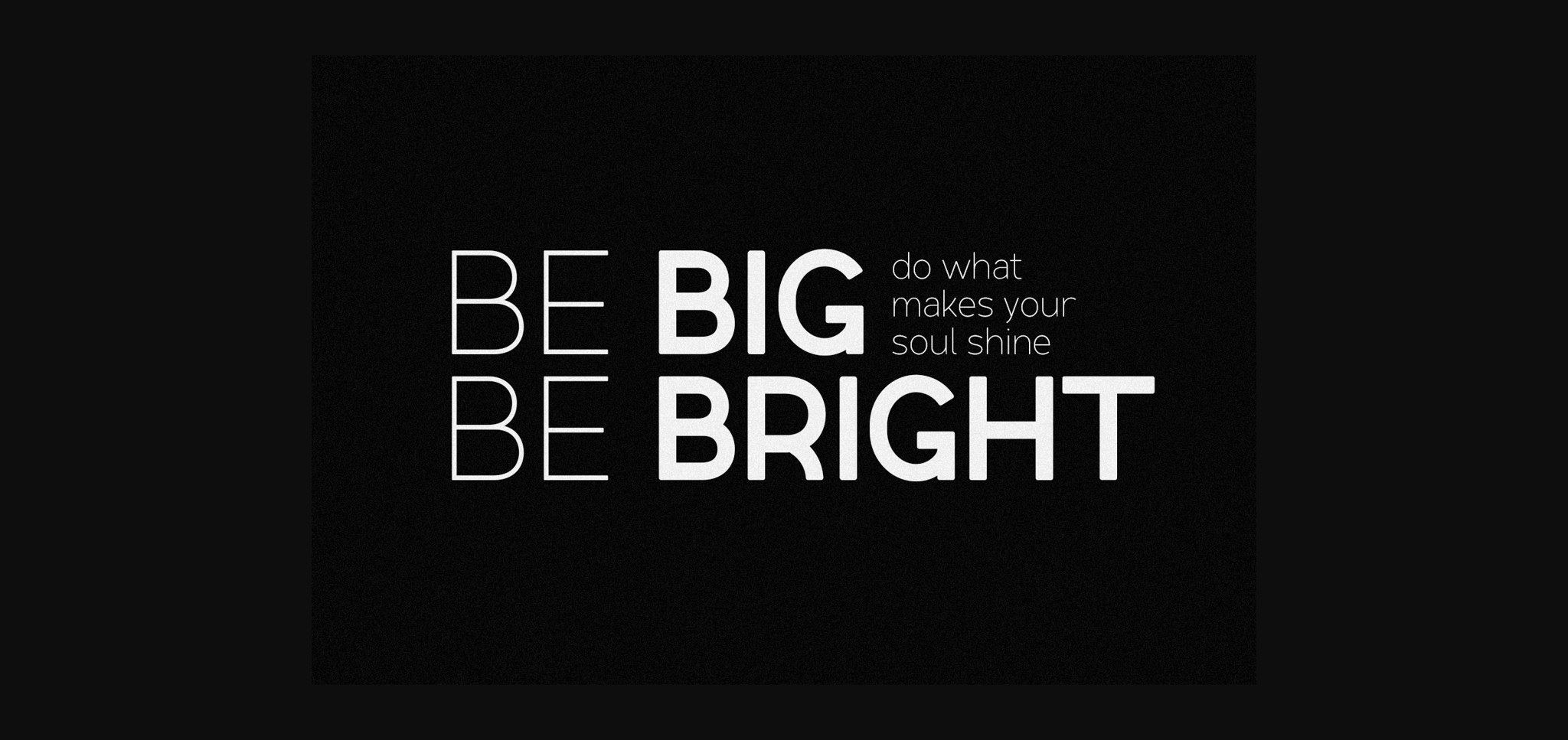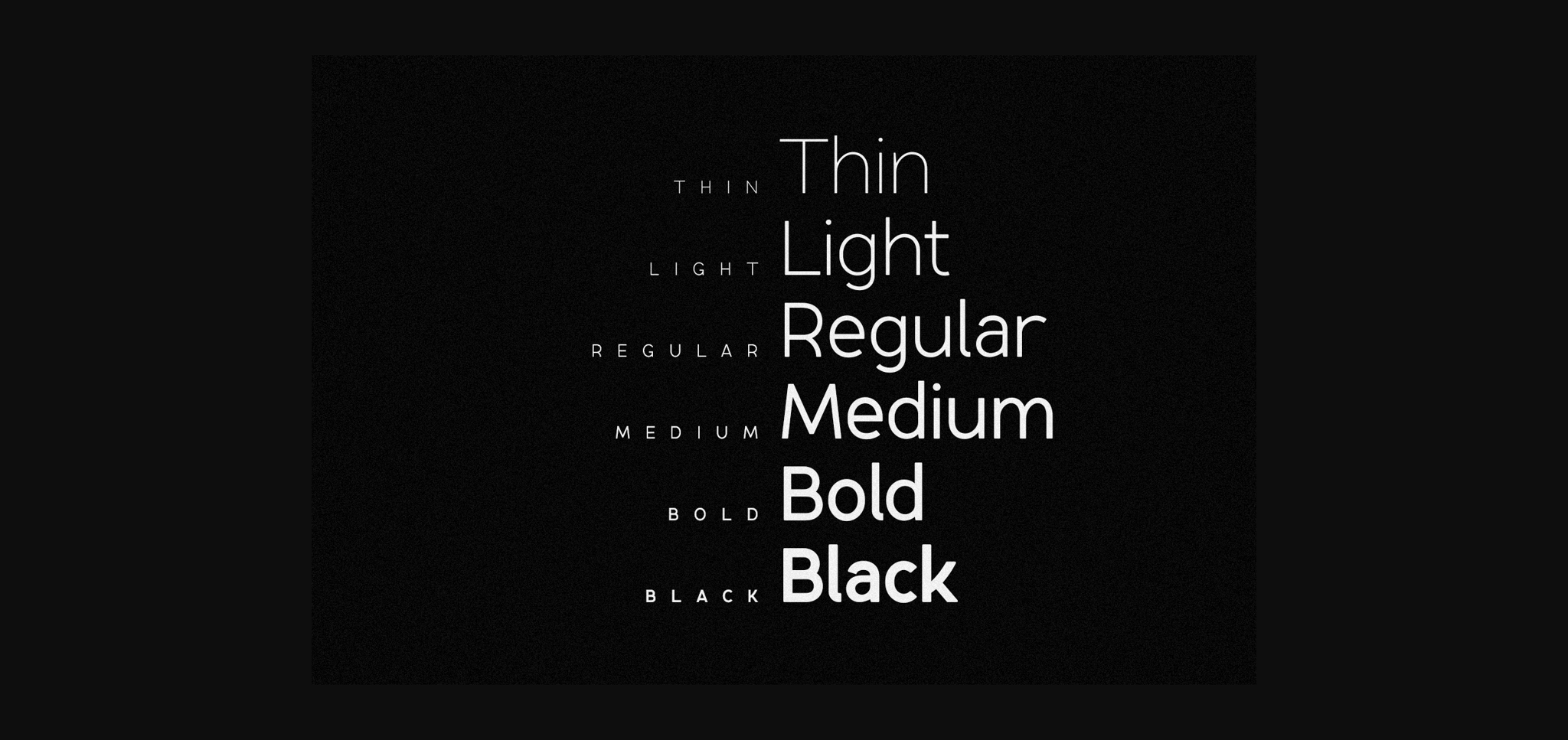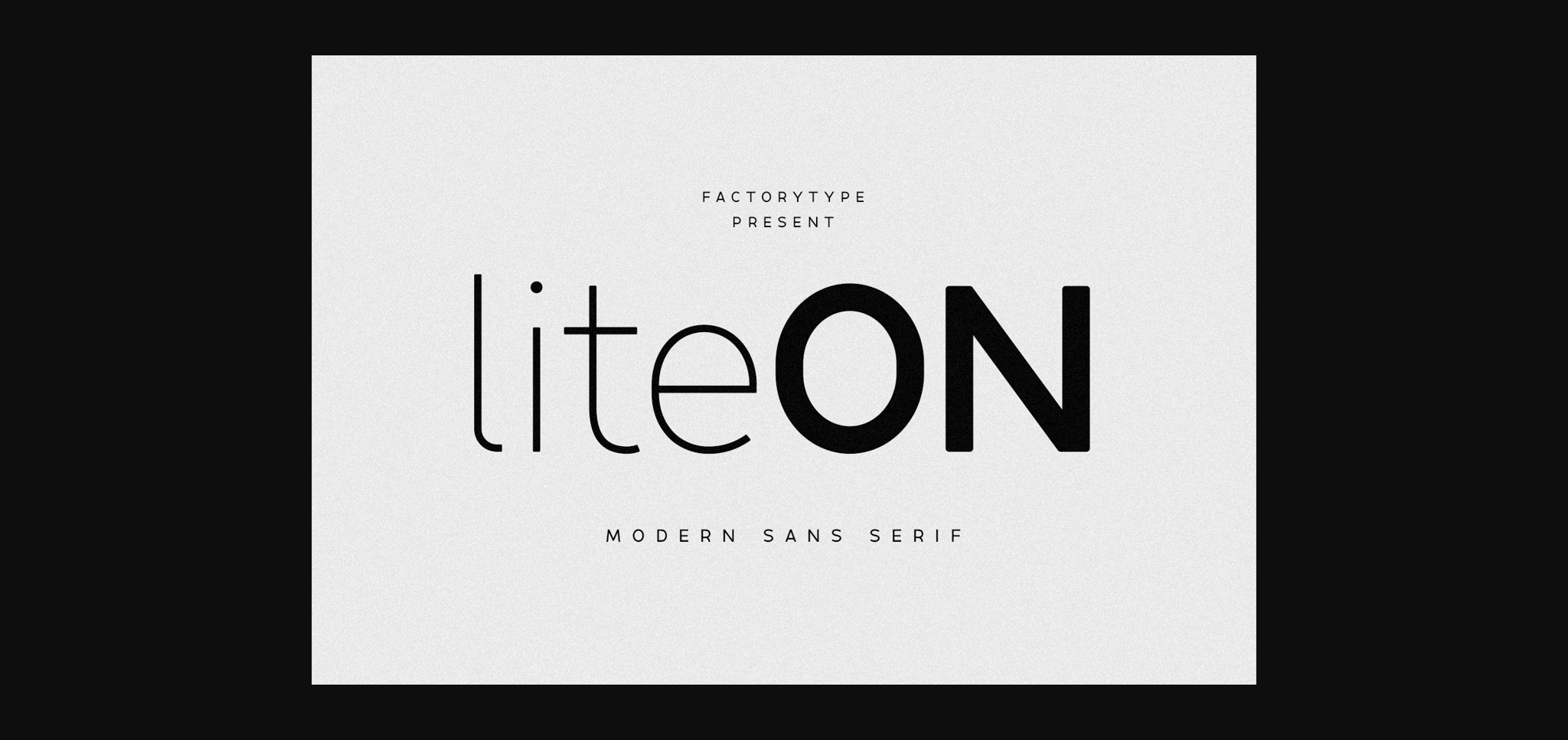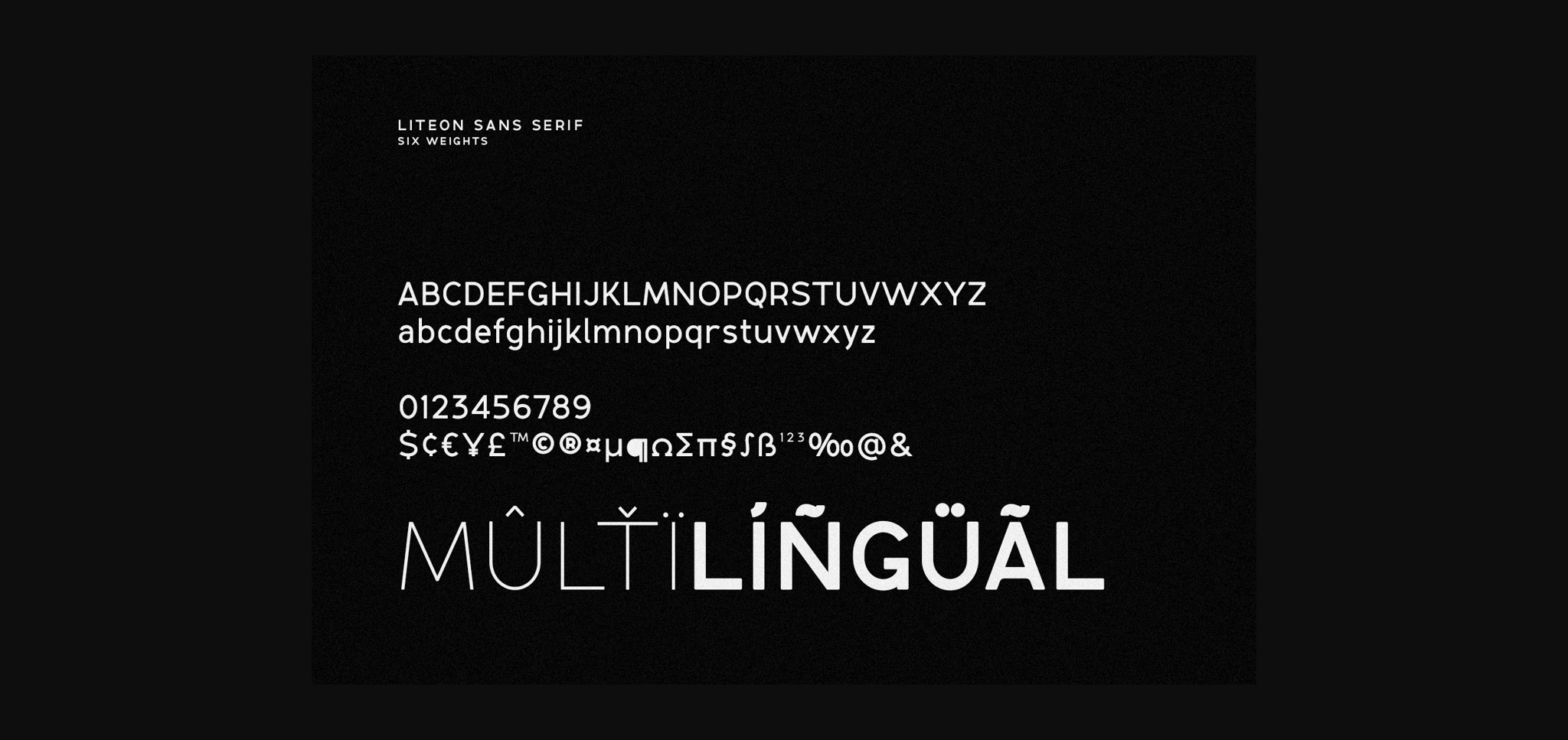
About Liteon Font
LiteOn is a lovely sans serif font family with a contemporary feel. The elegant design was achieved by combining modern and minimalist elements. When it comes to choosing the right typographic color for your project, the different weights give you a lot of options. The available Ligatures and alternate glyphs provide a diverse range of characters to make your project design stand out.